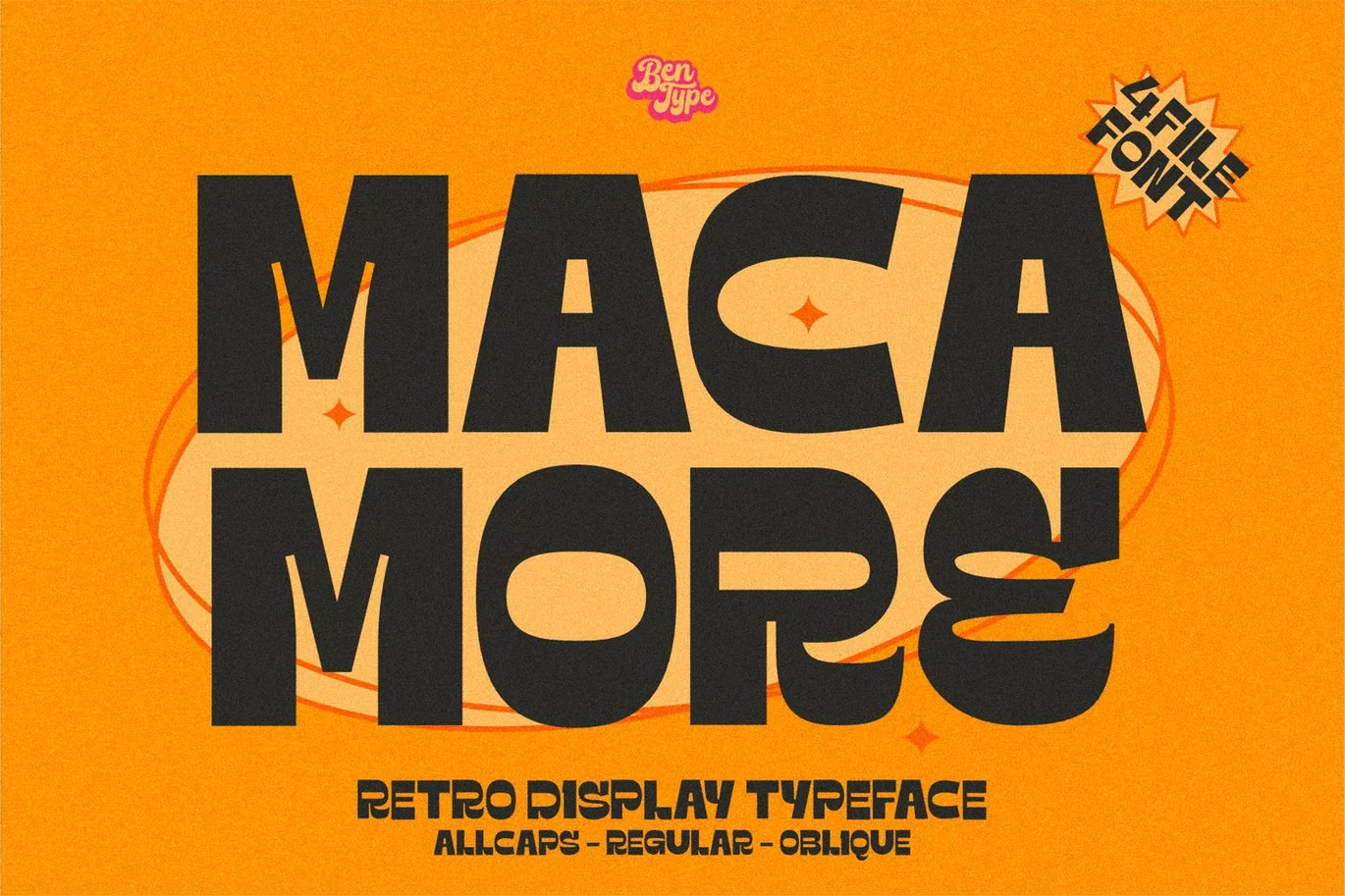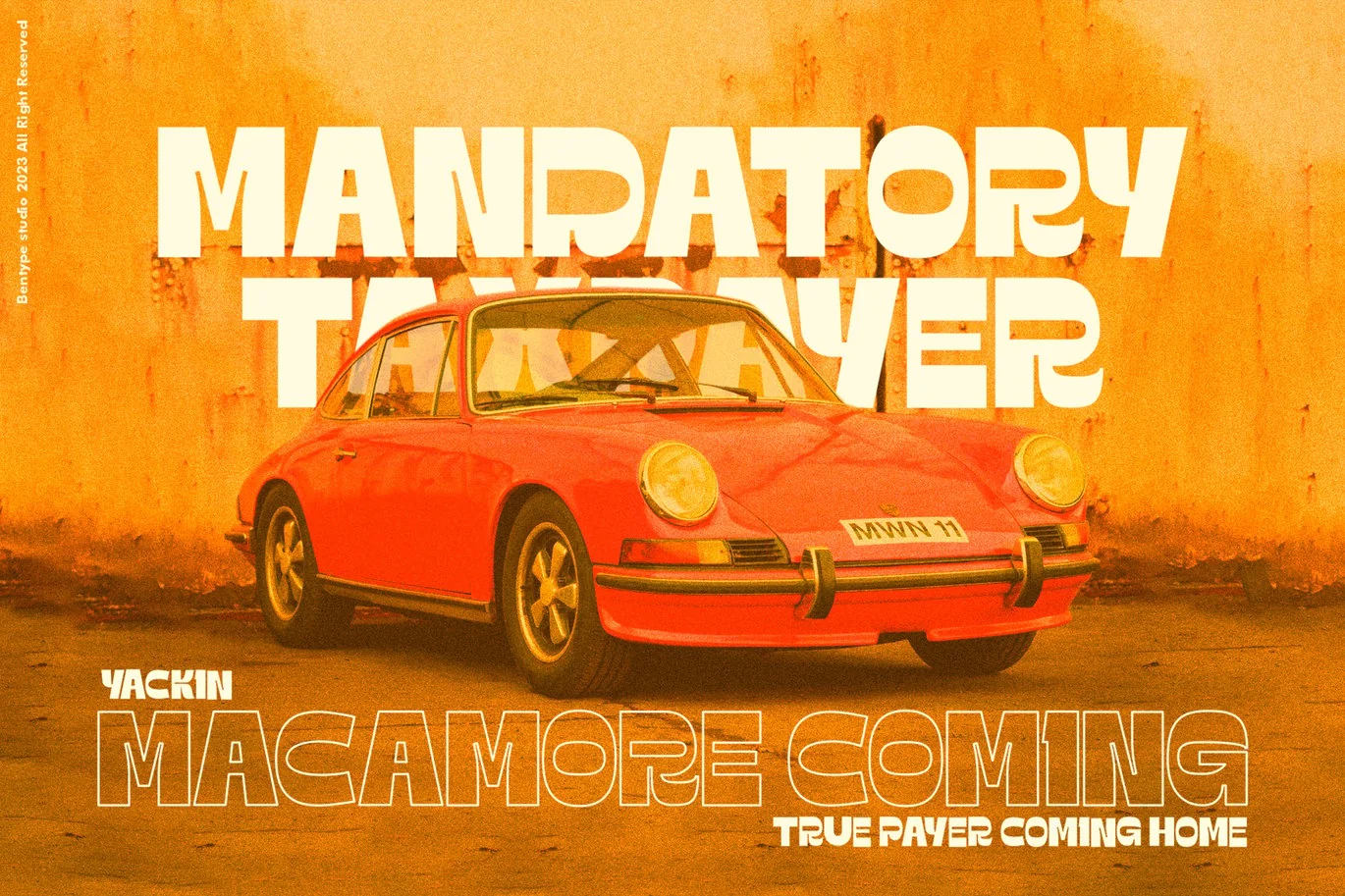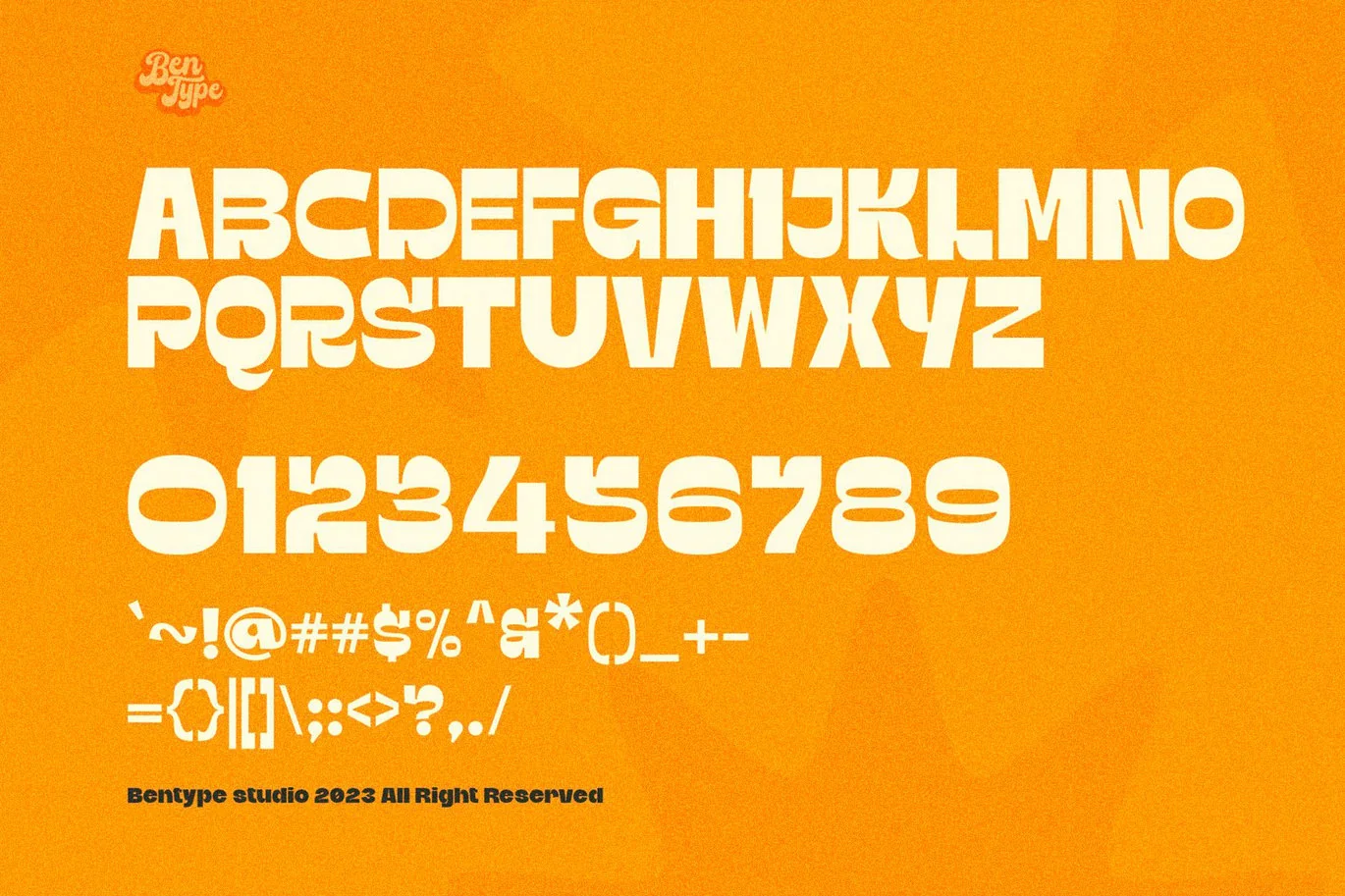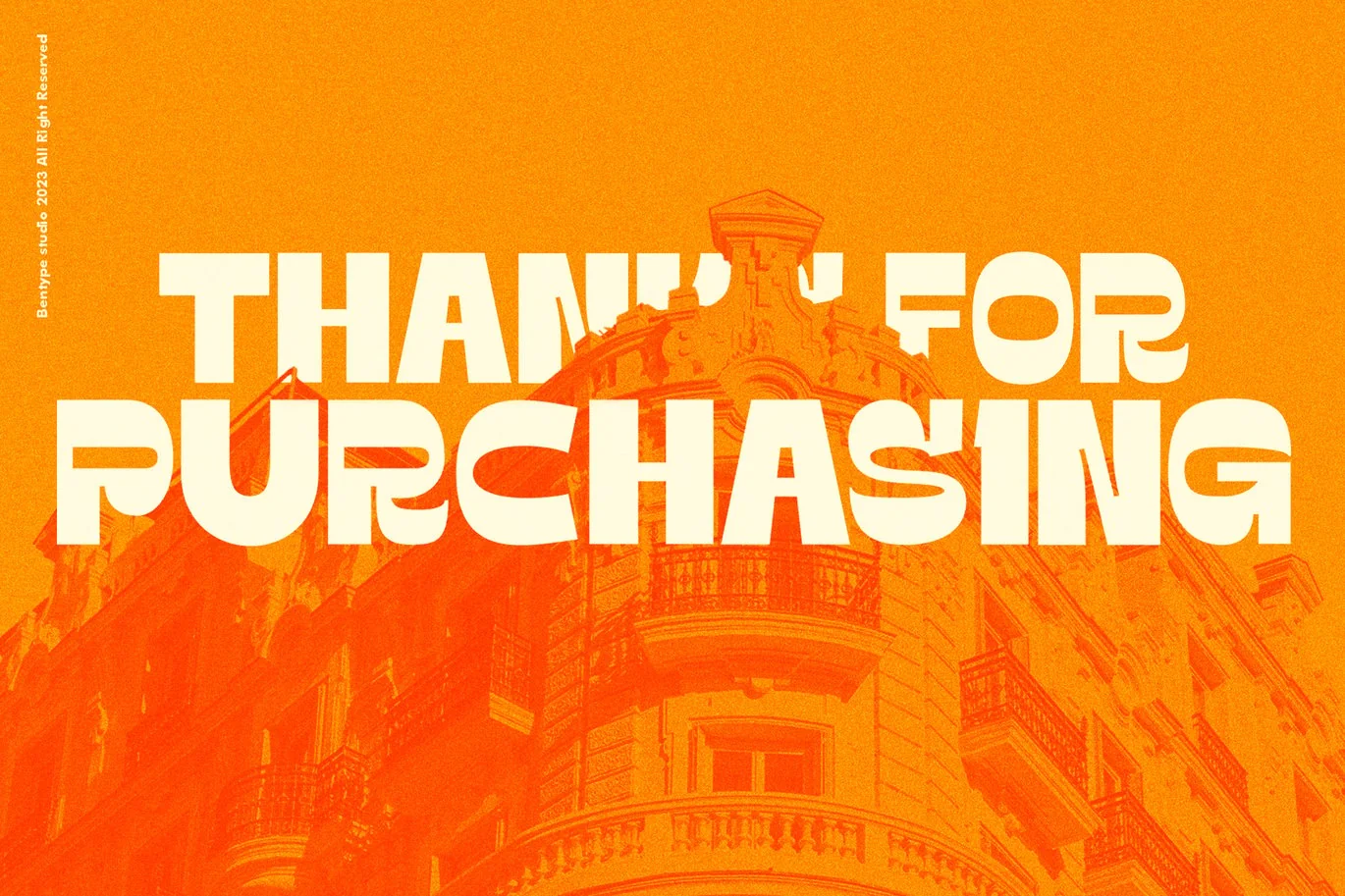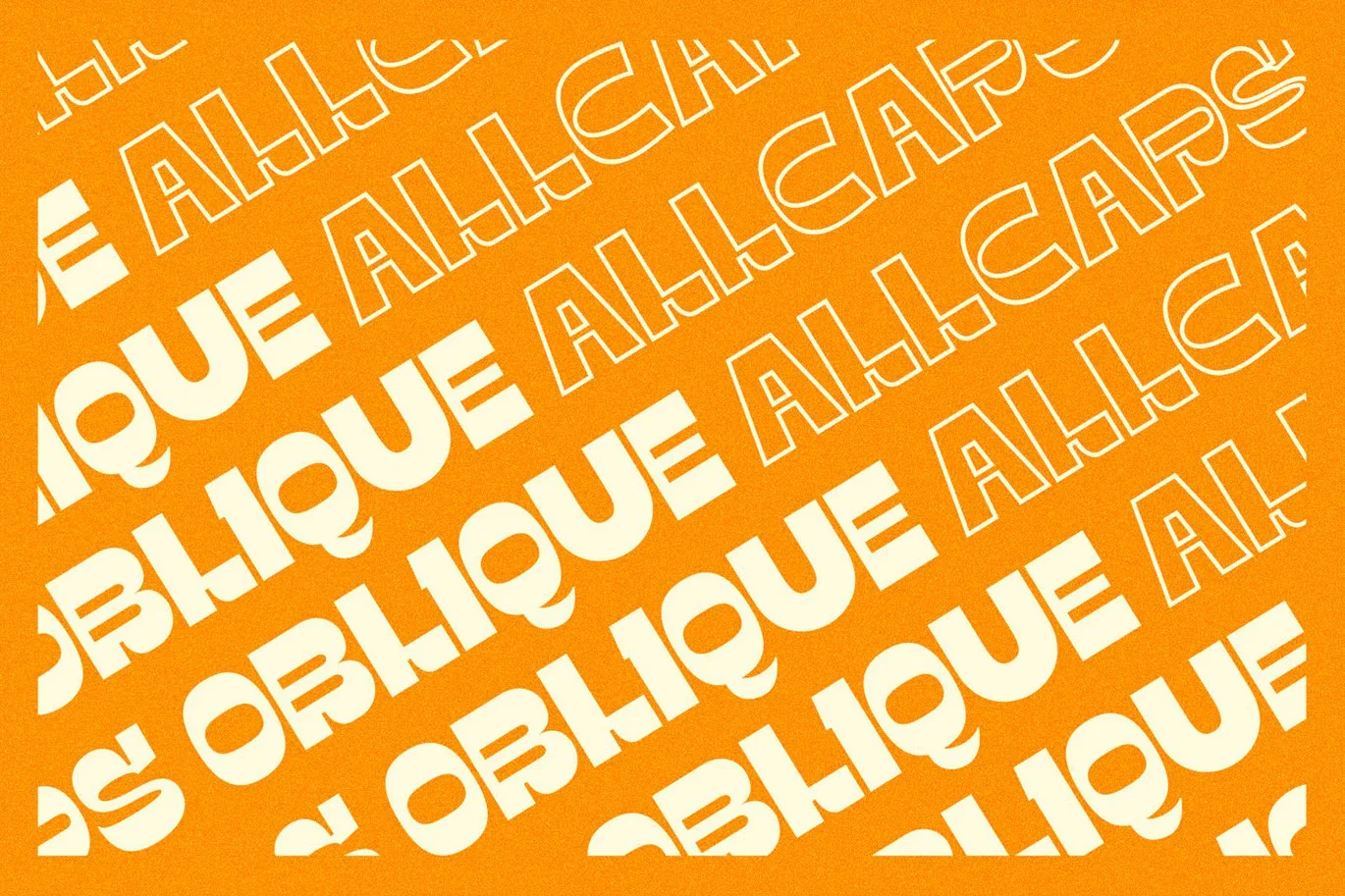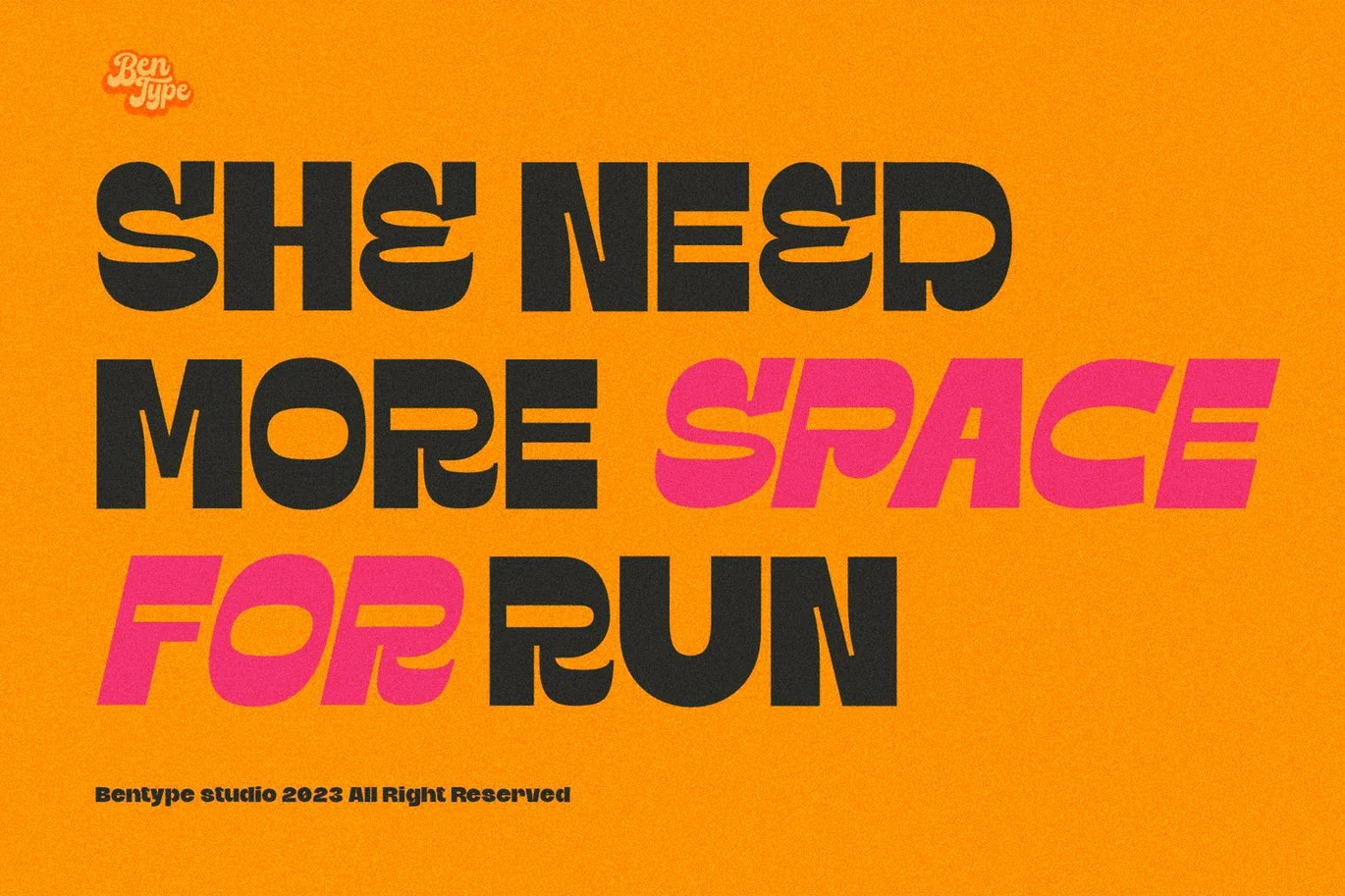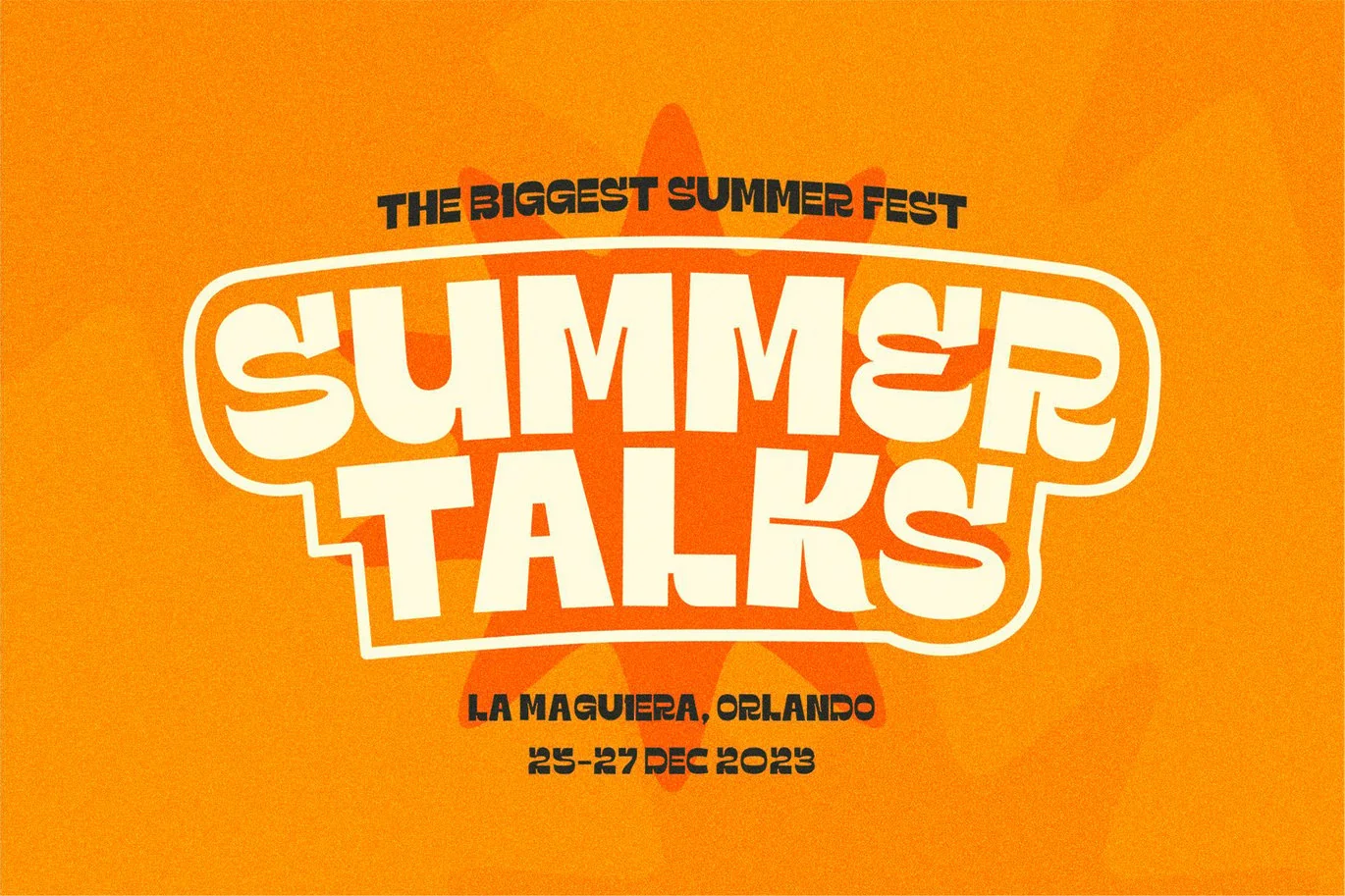
Macamore – Retro Display Typeface
Macamore s a bold font with inktrap mode. Basically, this is a Sans. And inspired by the retro and psychedelic typefaces.
Macamore is best used for logotype, headlines, headers, signage, apparel design, invitation, poster, flyers, greeting cards, packaging, book cover, printed quotes, cover album, movies, etc